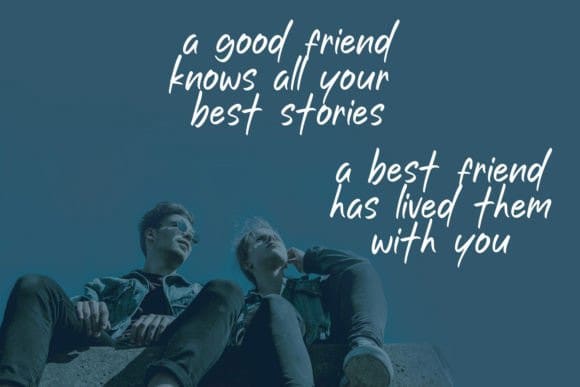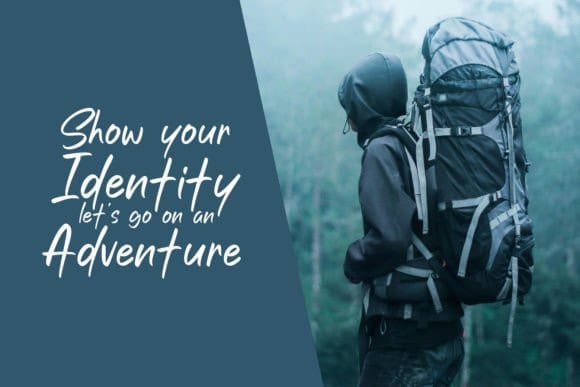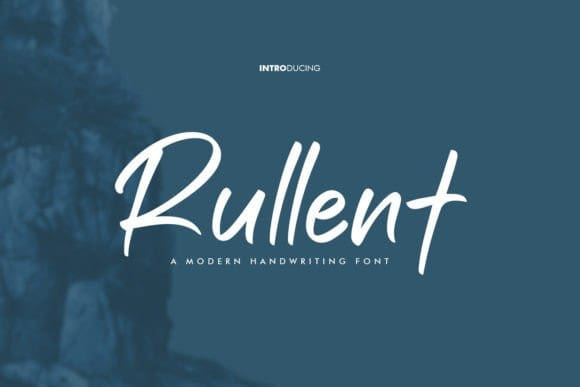
Rullent Script Font
Rullent Script Font is a clean, stylish, modern, and elegant script handwriting font perfect for posters, logos, magazines, book covers, banners, and many more! Get this amazing font, and use it to create lovely designs. It can easily be matched to an incredibly large set of projects, so add it to your creative ideas and notice how it makes them stand out!